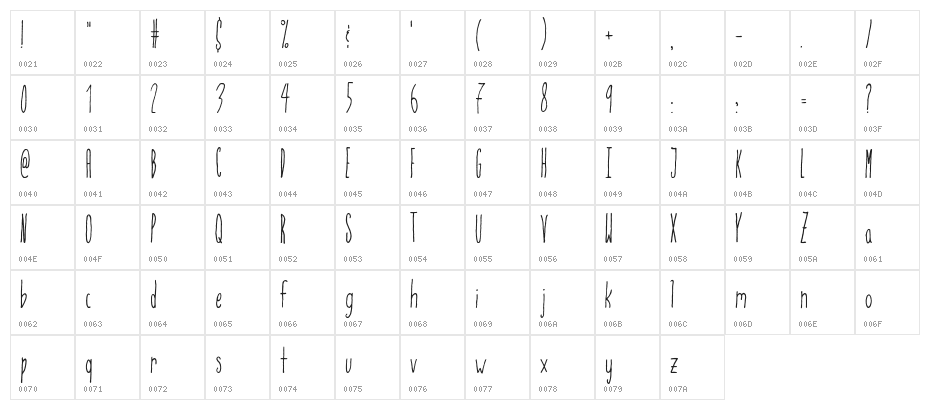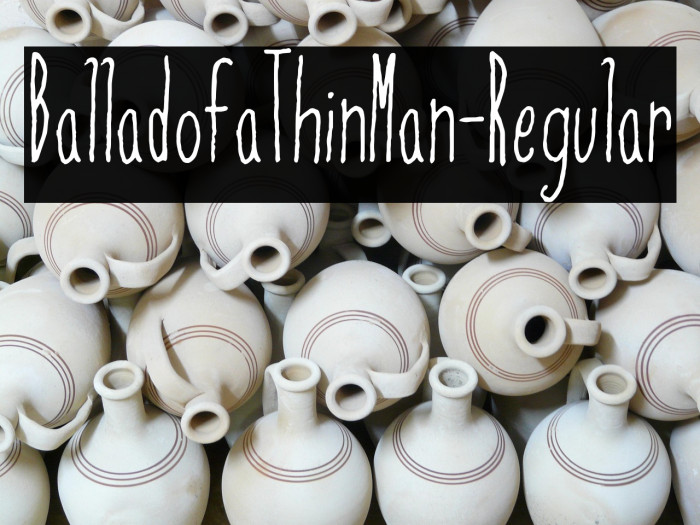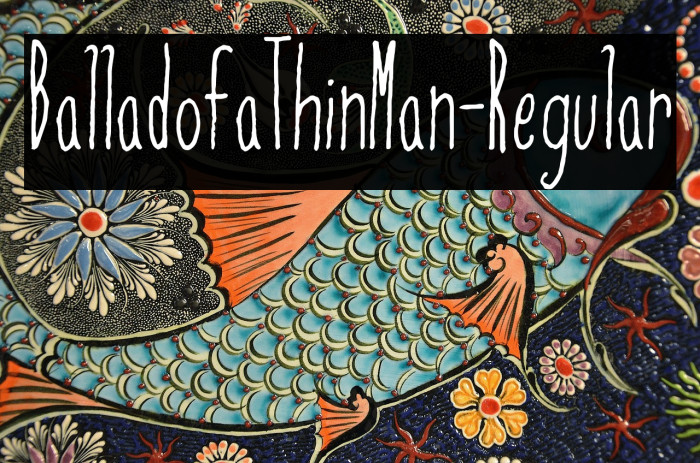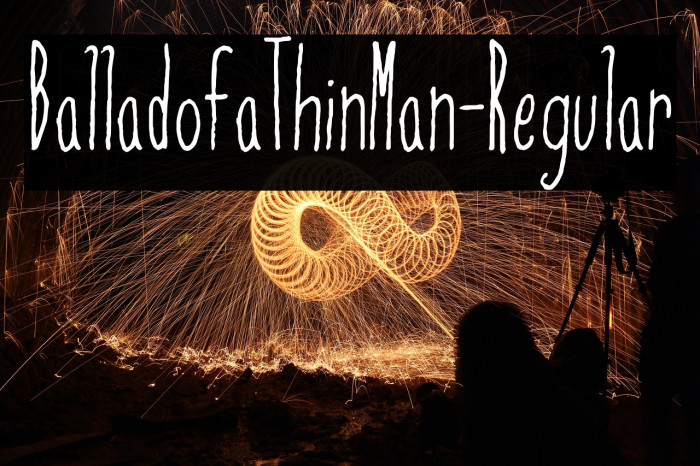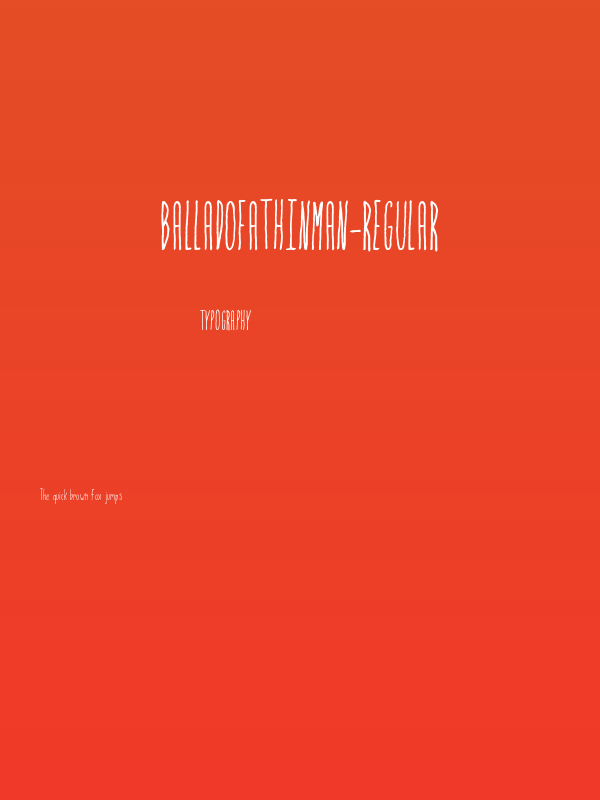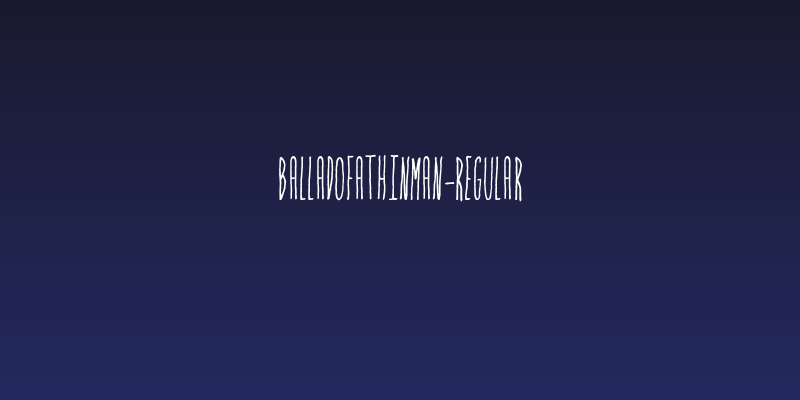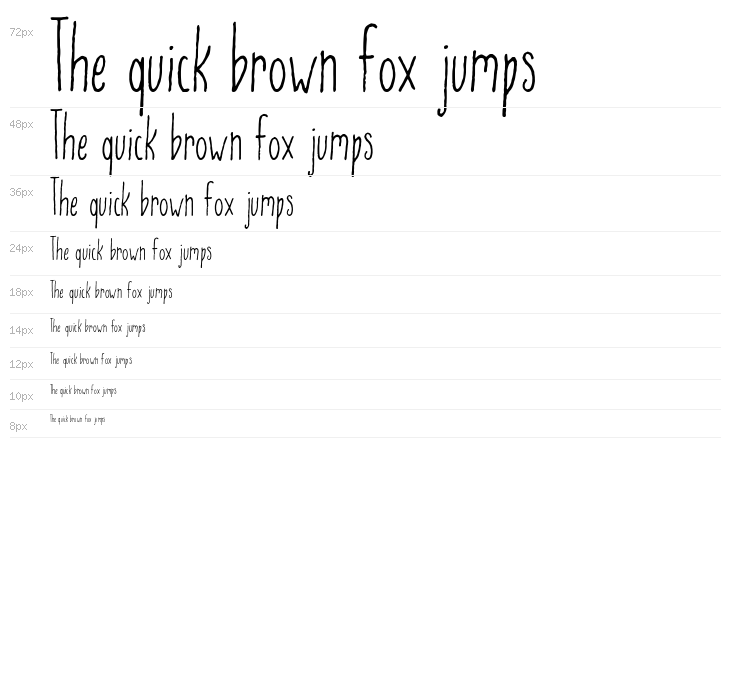
BalladofaThinMan-Regular Font
BalladofaThinMan-Regular Description
This font features a playful and quirky handwritten style, characterized by its tall, narrow letters and uneven stroke widths. The uppercase letters are slightly taller than the lowercase, adding to its whimsical appearance. The numbers and special characters maintain the same playful aesthetic, with a consistent hand-drawn feel throughout. The irregularities in the strokes give it a personal and informal touch, making it ideal for creative projects that require a unique and artistic flair.
| Proposed Projects | Ideal for greeting cards, children's books, creative posters, and personal branding projects. |